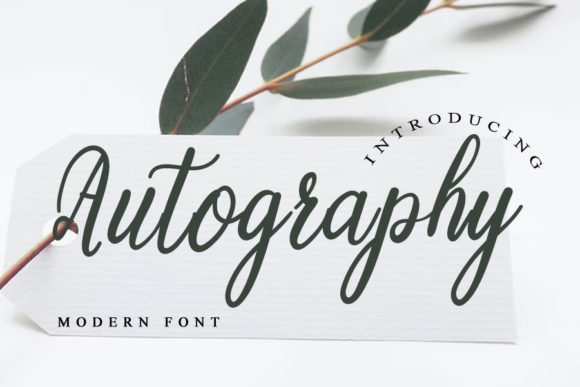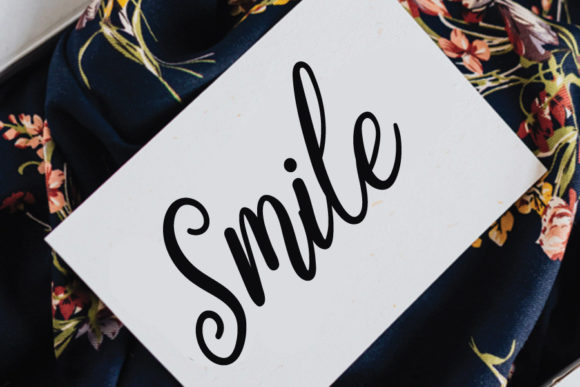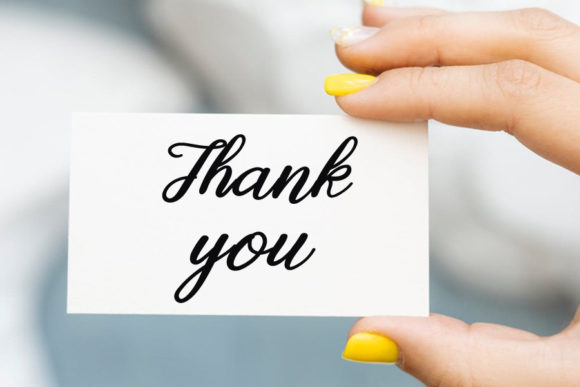
About Autography Font
Autography is a fresh and beautiful font designed to bring a touch of elegance to your creative projects. With its unique style, this font is well-suited for a variety of design purposes, making it an ideal choice for Youtube banners, cover logo mockups, wedding invitations, ID cards, and flyers. Autography adds a distinctive and refined aesthetic to your designs, enhancing their overall visual appeal.
The fresh and beautiful qualities of Autography make it suitable for a range of design applications. Whether used in digital spaces like Youtube banners or for physical items like wedding invitations and ID cards, Autography introduces a sense of sophistication that complements various contexts.
The versatility of Autography extends to its adaptability in different design scenarios. Its fresh and beautiful design elements ensure that it can seamlessly integrate into diverse themes, adding a touch of uniqueness to your projects.
In summary, Autography is not just a font; it’s a design asset that brings freshness and beauty to your creative endeavors. Its suitability for Youtube banners, cover logo mockups, wedding invitations, ID cards, and flyers makes it a valuable choice for designers seeking an elegant and versatile font. With Autography, your designs are elevated with a distinctive and refined aesthetic that captures the attention of your audience.